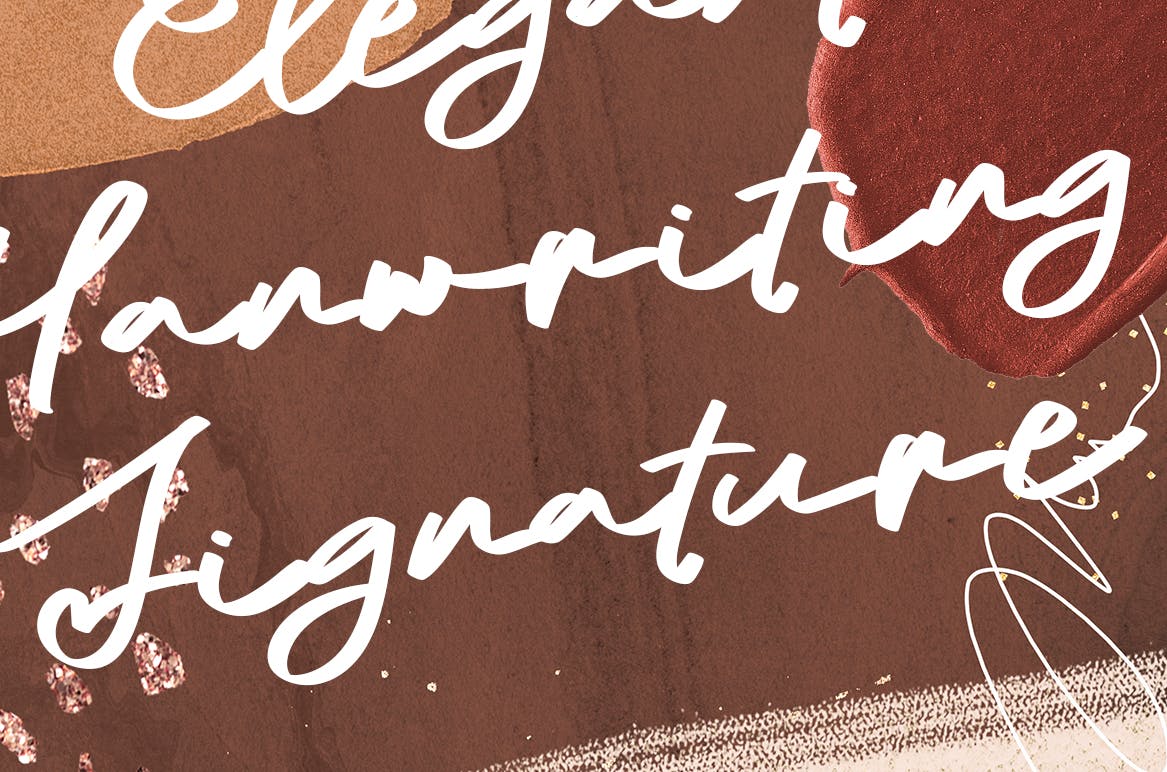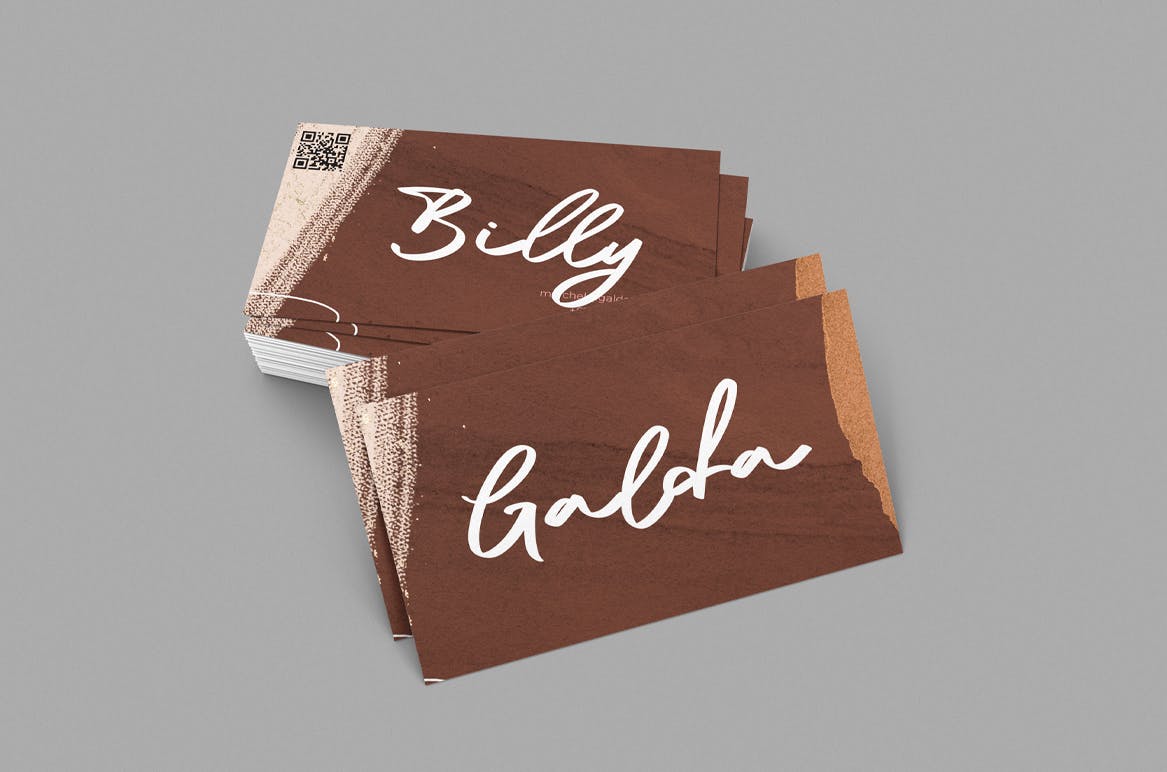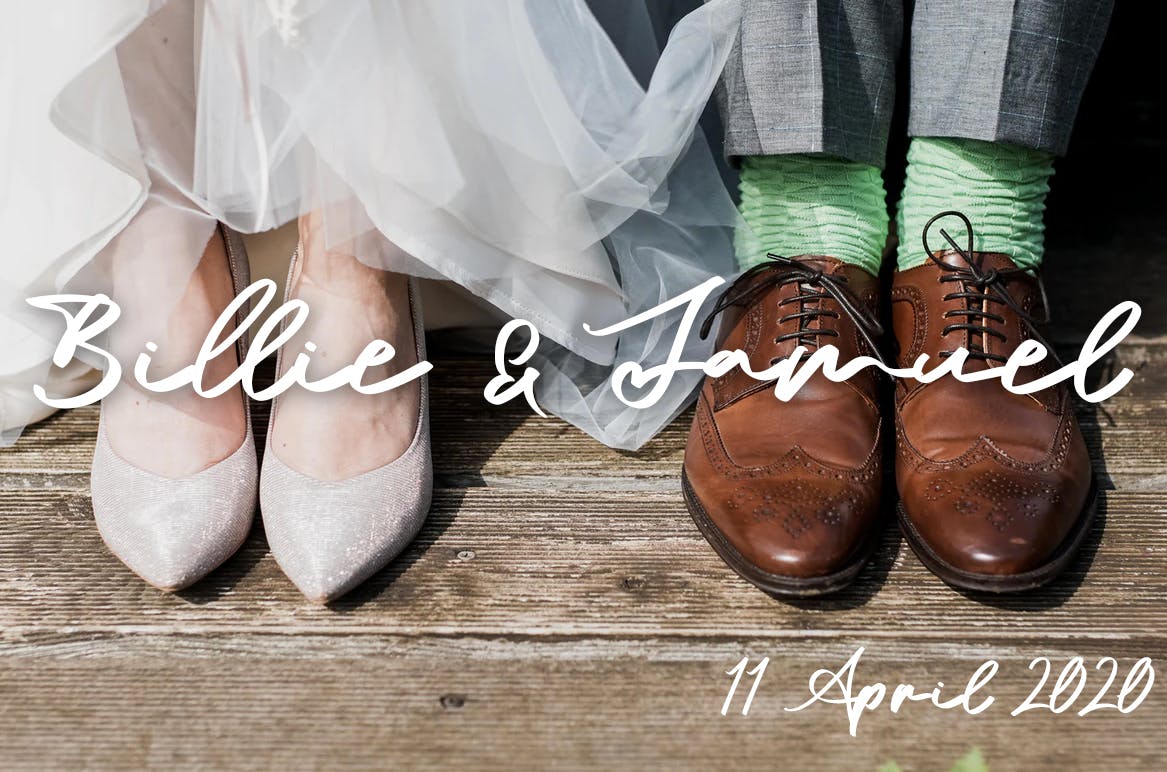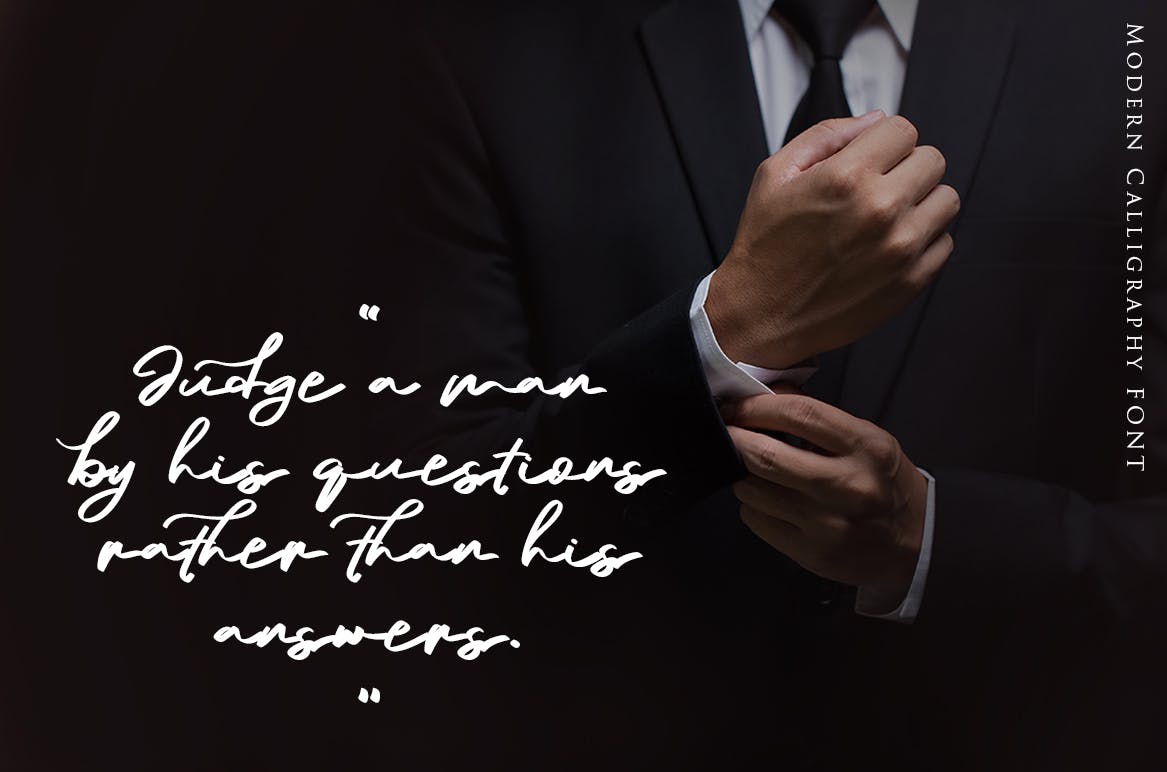
Free South Portland Script Font
Free South Portland Script Font is a modern signature font with beautiful curves and alternate characters. It has a unique style and character that will make your works have a personal identity. It also comes with one formal file which is OTF that you can install and use on your devices. This font is suitable for your projects such as business cards, posters, and more. However, you may use this free font on personal use license, but, if you want to get more features! Go purchasing the premium version.